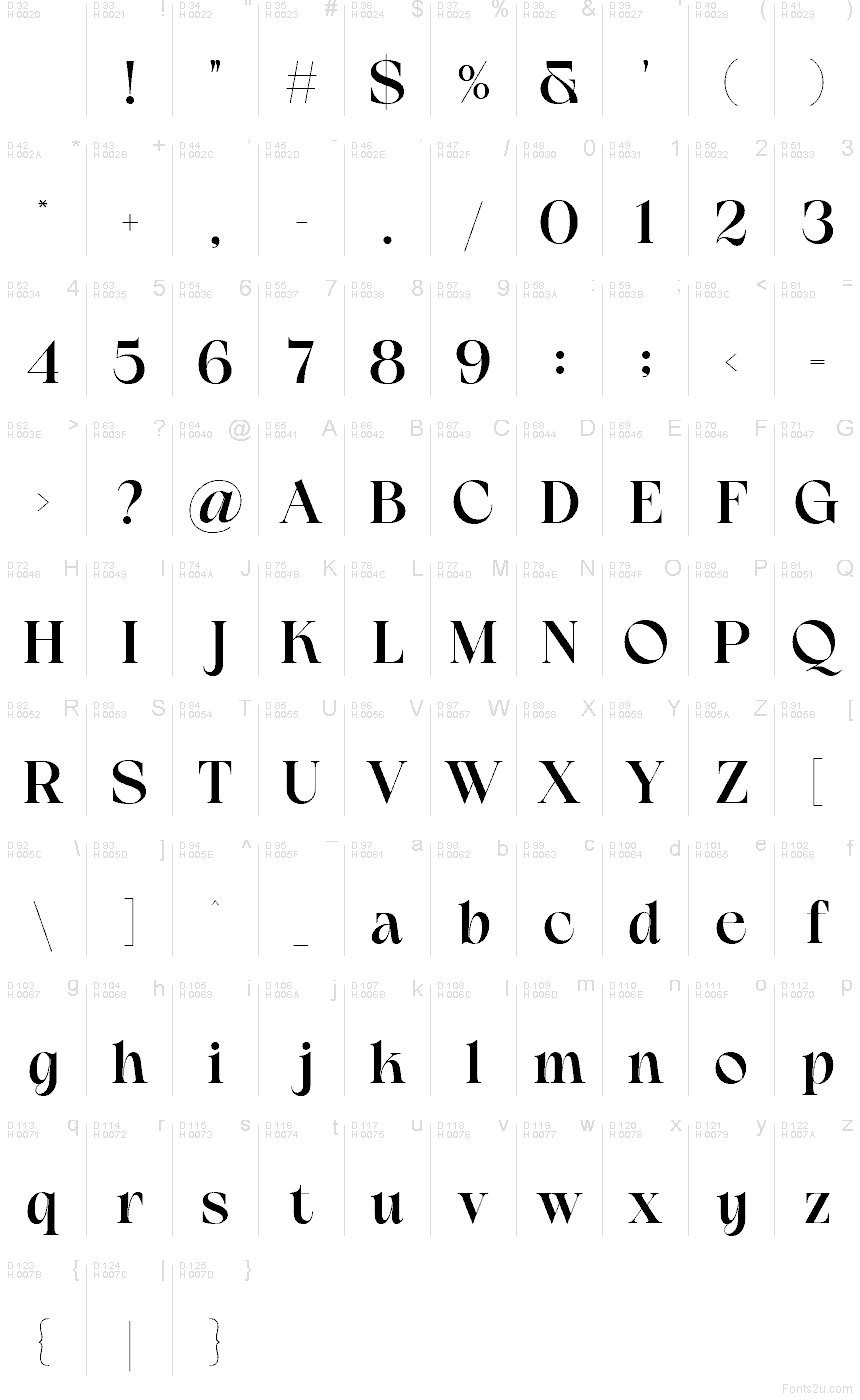
Ashigea Regular
Ashigea font by ToniStudio is a free serif typeface with a dramatic, sculpted elegance that instantly pulls the eye. Its tall, poised letters flare from fine hairlines into inky, full-bodied strokes, with sharp serif flicks that feel almost hand-chiseled. The rhythm is refined yet bold, giving headlines a sense of couture confidence and literary drama in just a few words.
Using Ashigea, your titles and wordmarks gain a polished, fashion-forward attitude that works beautifully for magazine mastheads, luxury branding, packaging, posters, invitations, and statement logos. This free font thrives at larger sizes where its curves and edges can really breathe; pair it with a clean, unobtrusive sans-serif for body copy to let Ashigea carry the spotlight.